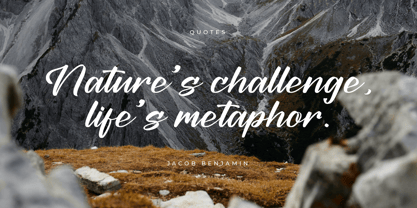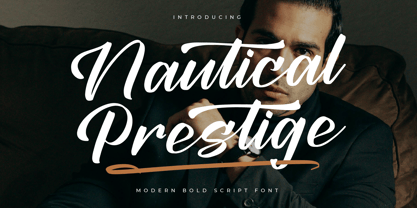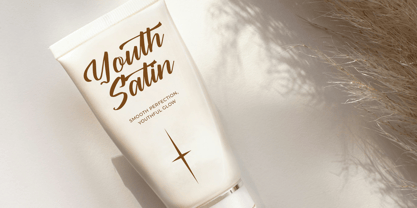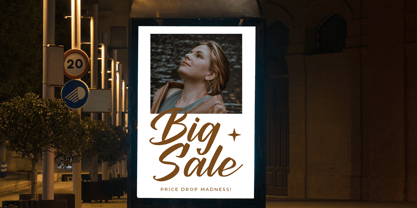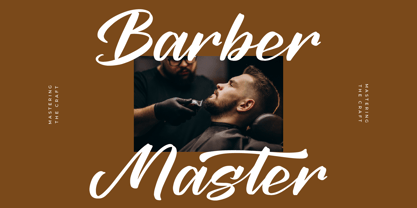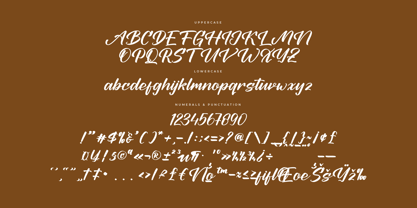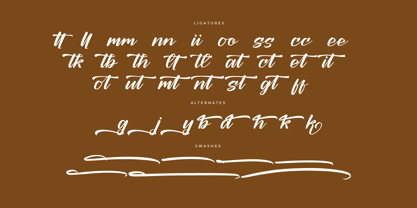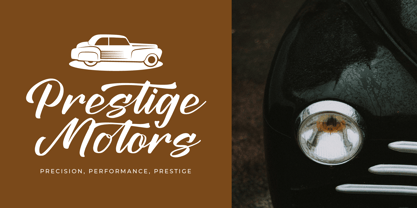
Nautical Prestige
by Letterena Studios
The Nautical Prestige Font Family was designed by Heru Utama Putra and published by Letterena Studios. Nautical Prestige contains 2 styles.
Nautical Prestige is a dazzling script font that exudes elegance and charm. With its fluid strokes and intricate details, it captivates the eye and adds a touch of sophistication to any design project. Perfect for invitations, branding, and headlines, this font brings a sense of luxury and style to your creations.